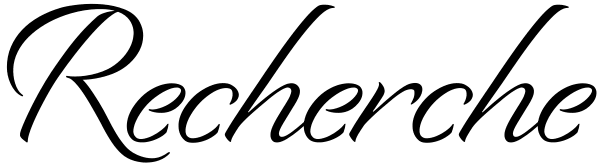
Recherche
Recherche means “studied refinement or elegance” — and suits this typeface perfectly. Based on letters from a pointed brush, its long, arcing verticals and open-ovaled counters convey airy sophistication. Recherche is packed with swashy alternates...